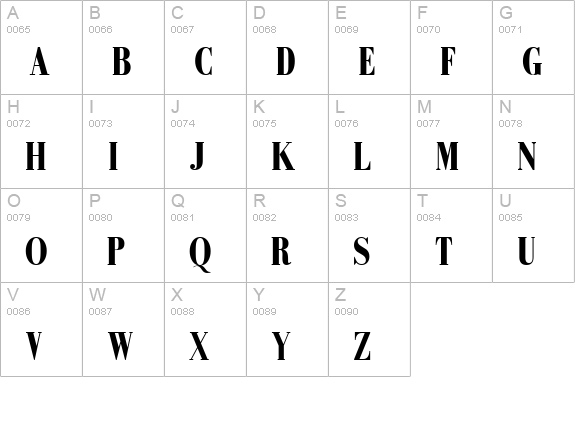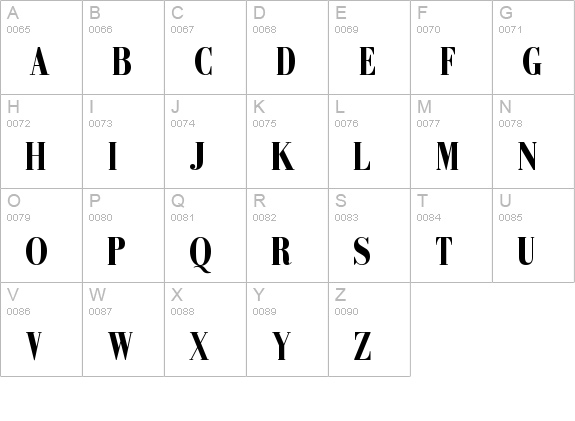
RecitalSSK Bold Font Details
RecitalSSK Bold is a strong, high-contrast variant in the RecitalSSK typeface family \xE2\x80\x94 well suited to headlines, attention-grabbing titles, and strong calls-to-action.
RecitalSSK Bold font is a stunningly bold typeface that commands attention and exudes confidence. With its powerful and distinct letterforms, this font is perfect for making a bold statement in any design project. Whether used for headlines, titles, or logo designs, RecitalSSK Bold brings a touch of sophistication and elegance to any composition. The thick and curvaceous strokes of RecitalSSK Bold create a strong visual impact, helping to draw the eye and captivate the viewer. Its bold and confident presence effortlessly grabs attention and ensures that your message is delivered with authority. This font is ideal for projects that require a strong and impactful visual presence, such as advertisements, posters, or branding materials. One of the best things about RecitalSSK Bold font is that it is freely available to download at FontsMarket.com. This means that you have the opportunity to enhance your design work with this exceptional font without any cost. With just a few clicks, you can access this stunning typeface and start incorporating it into your creative projects immediately. Designed to be versatile and adaptable, RecitalSSK Bold font can be used in a wide range of design applications. Its legibility and bold nature make it a great choice for both print and digital projects. Whether you're working on a website, a magazine layout, or a packaging design, this font will elevate your work and make it stand out from the crowd. In conclusion, RecitalSSK Bold font is a powerful and eye-catching typeface that will add a touch of sophistication and impact to your design projects. With its freely available download at FontsMarket.com, you have the opportunity to enhance your work with this exceptional font without any cost. So why wait? Download RecitalSSK Bold now and take your designs to the next level.